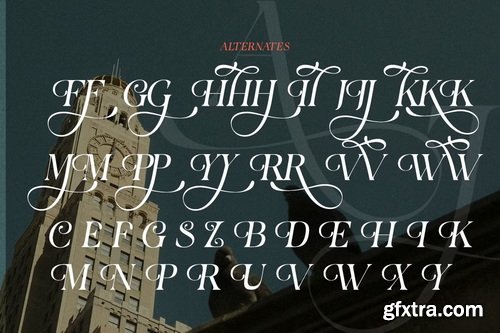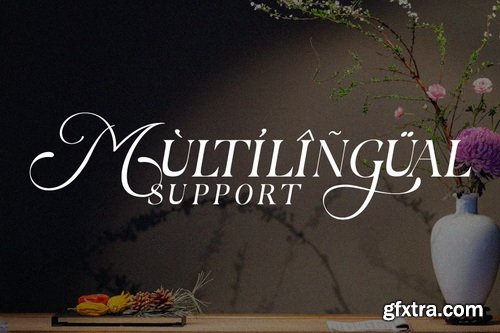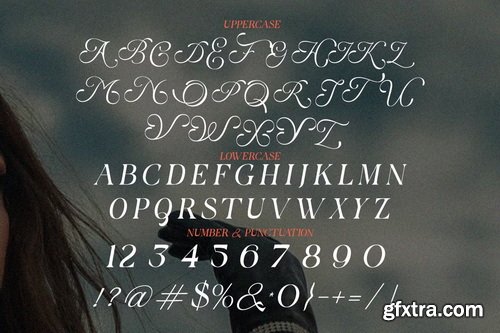
CreativeMarket - Berfal - Elegant Luxury Serif
Berfal is a sophisticated serif typeface that exudes refined elegance and timeless luxury. Featuring exquisite alternates and stylish ligatures, this font is meticulously crafted for high-end branding, luxury logos, premium packaging, and editorial designs that demand both beauty and prestige. With its graceful serifs and balanced proportions, Berfal delivers exceptional versatility for brands seeking both refinement and impact. The carefully designed alternates and ligatures enable seamless typographic harmony, perfect for creating distinctive visual identities with a touch of class.